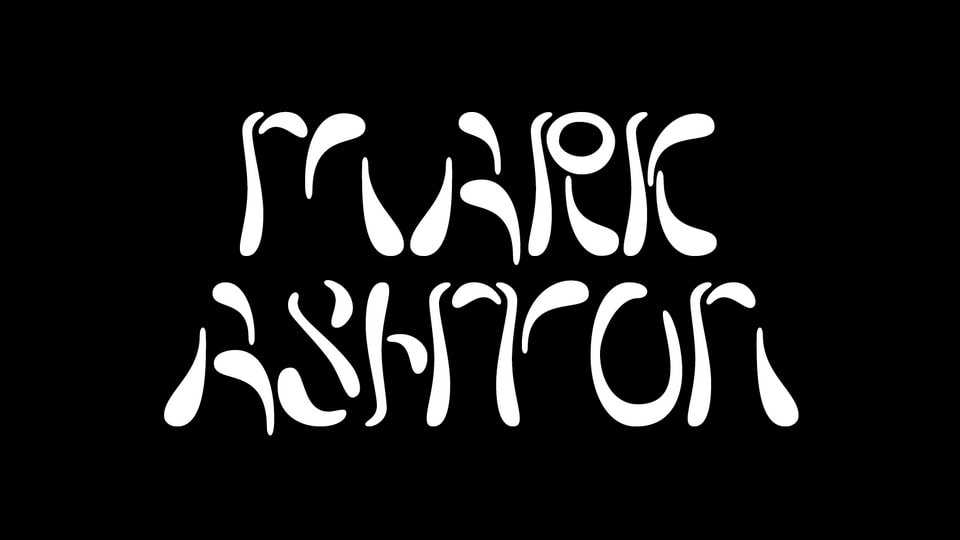
Download RandomWiki Ashton font, a display typeface based on a randomly selected Wikipedia article and inspired by Mark Ashton (musicien). RandomWiki Ashton was created during a type design initiation workshop given by Lucas Descroix in February 2023.